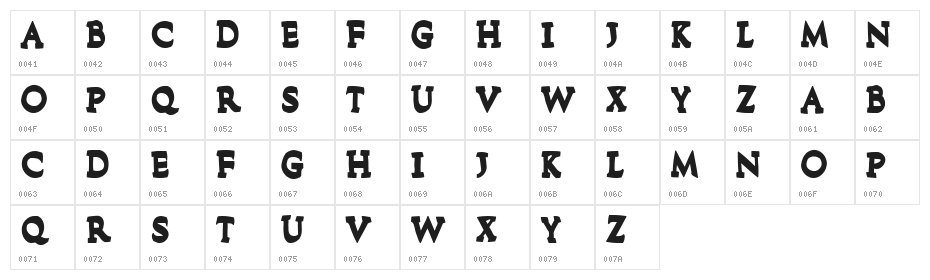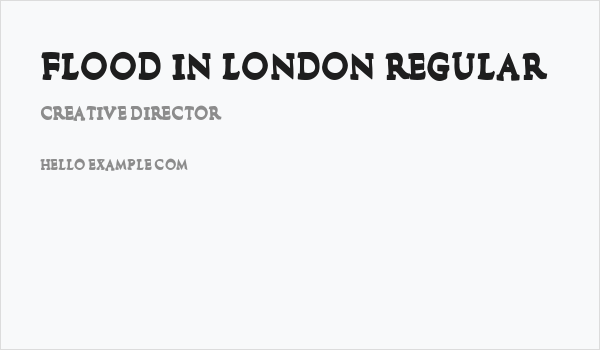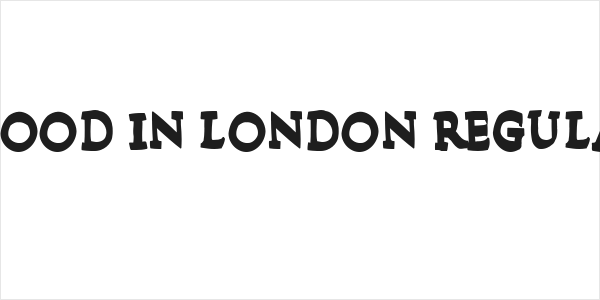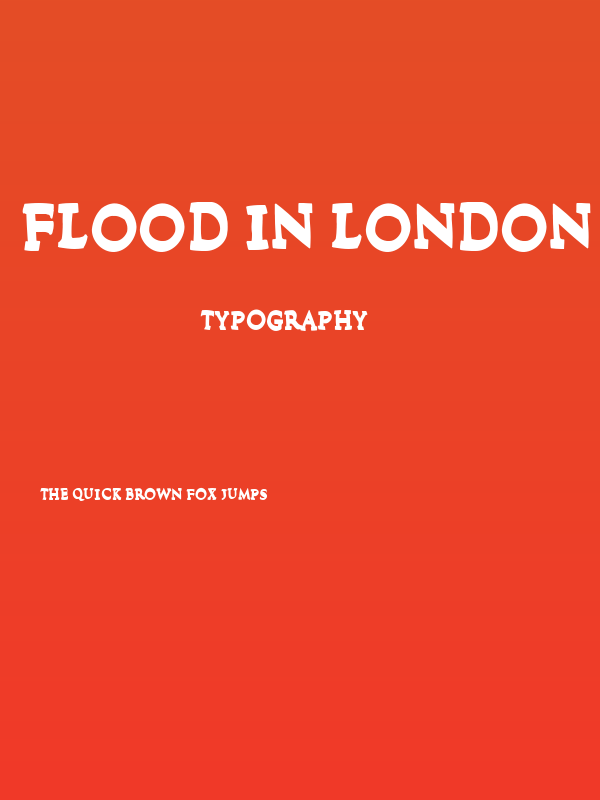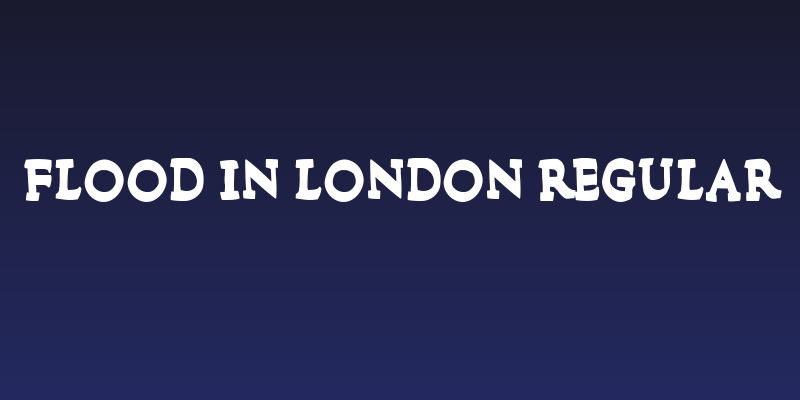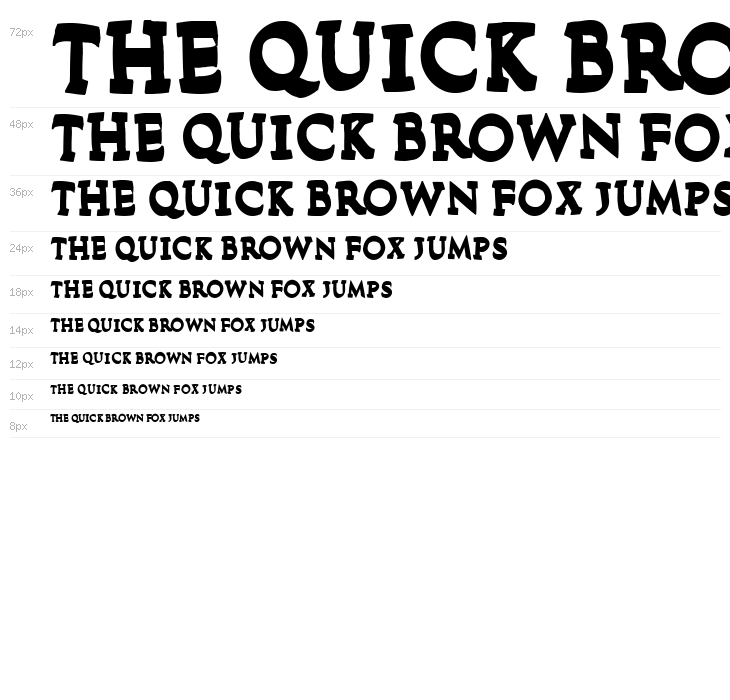
Flood In London Regular Font
Flood In London Regular Description
This font features a bold and playful design with a unique, slightly irregular shape that gives it a hand-drawn appearance. The characters are thick and robust, with a whimsical flair that adds a sense of fun and creativity. The strokes are uneven, contributing to its informal and dynamic style. This font is highly legible and stands out due to its distinctive character shapes, making it suitable for eye-catching designs. The overall look is both modern and artistic, perfect for projects that require a touch of personality and flair.
| Overall Style | Playful, Artistic |
| Proposed Projects | Ideal for children's books, playful branding, posters, and creative invitations. |